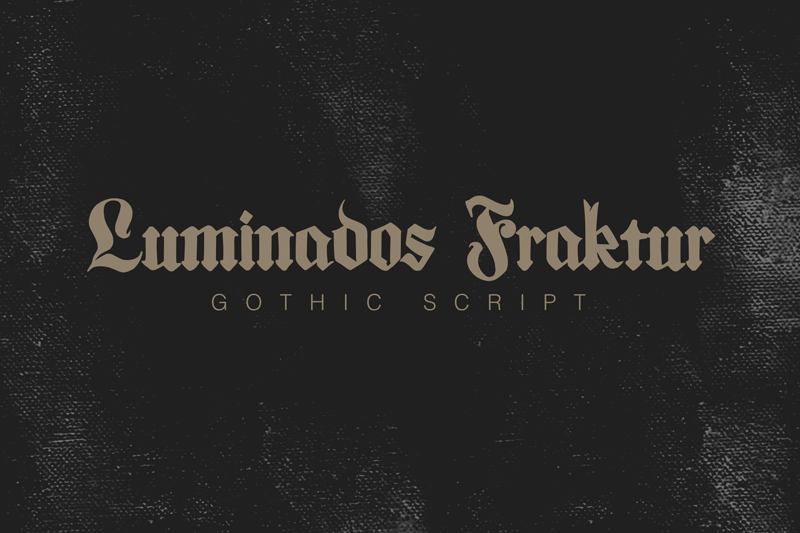
Preview and download Luminados Fraktur Font. Created by Mohamad Farhan Ramadhan in Gothic Medieval styles with Free for personal use license.
This font was inspired by classical fraktur made in the middle of the 19th century, which featured strong contrast and artistic lines. The font is well-suited for classical headlines, advertising, or artistic purpose. But with your creative idea, you can use this font to make your project outstanding and elegant. _______________________________________________________________________ By installing or using this font, you are agree to the Product Usage Agreement: - This font is already FULL VERSION and ONLY for PERSONAL USE. NO COMMERCIAL USE ALLOWED! - Here is the link to purchase COMMERCIAL LICENSE: https://www.creativefabrica.com/product/luminados-fraktur/ref/401336/ or https://fontbundles.net/cikareotype/2017228-luminados-fraktur - If you need a CUSTOM LICENSE or CORPORATE LICENSE please contact us at: mofr24.artwork@gmail.com - Any donation are very appreciated. Our Paypal account for donation : https://paypal.me/avieora Please visit our store for more amazing fonts : https://www.creativefabrica.com/designer/mofr24-artwork/ More... |